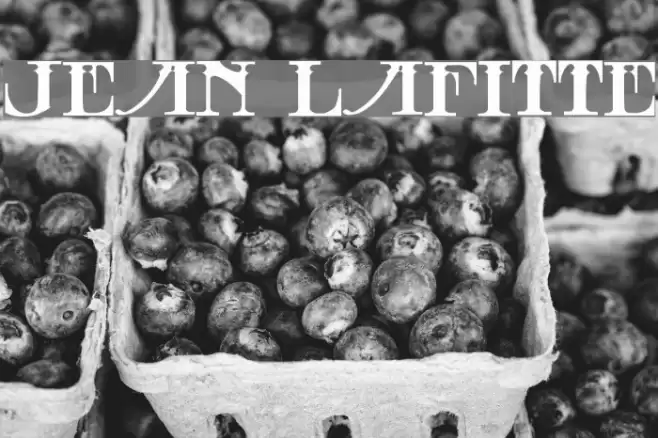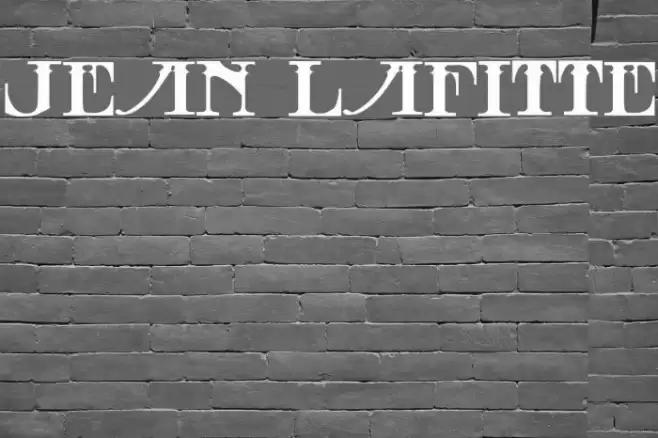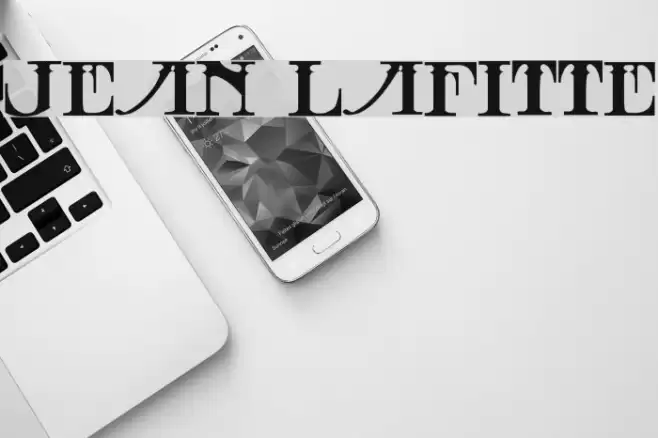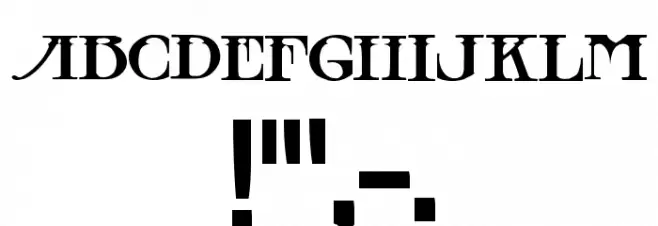
Jean Lafitte Font
Jean Lafitte Description
This font features a bold and dramatic style with a strong presence. The characters exhibit a high contrast between thick and thin strokes, giving it a dynamic and eye-catching appearance. The serifs are pronounced and angular, adding a touch of elegance and sophistication. The overall design is reminiscent of vintage or classic typefaces, yet it maintains a modern flair. The uppercase letters are particularly striking, with unique curves and angles that make them stand out. The lowercase letters complement the uppercase with a consistent style, ensuring readability and coherence. The numbers and special characters are designed to match the boldness and style of the alphabet, making this font versatile for various applications.
A bold, high-contrast serif font with dramatic and elegant features from Uncategorized fonts.
- Proposed Projects: Ideal for use in branding, headlines, posters, and any design requiring a strong and sophisticated typeface.
- Overall Style: Vintage